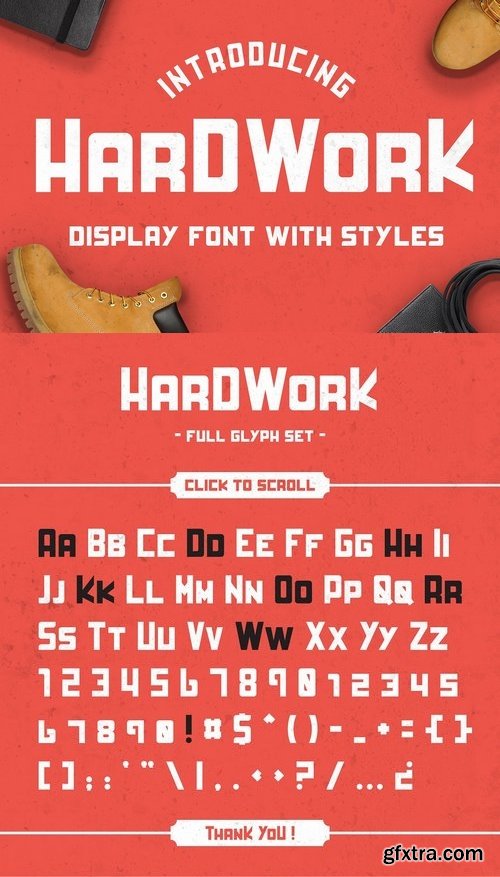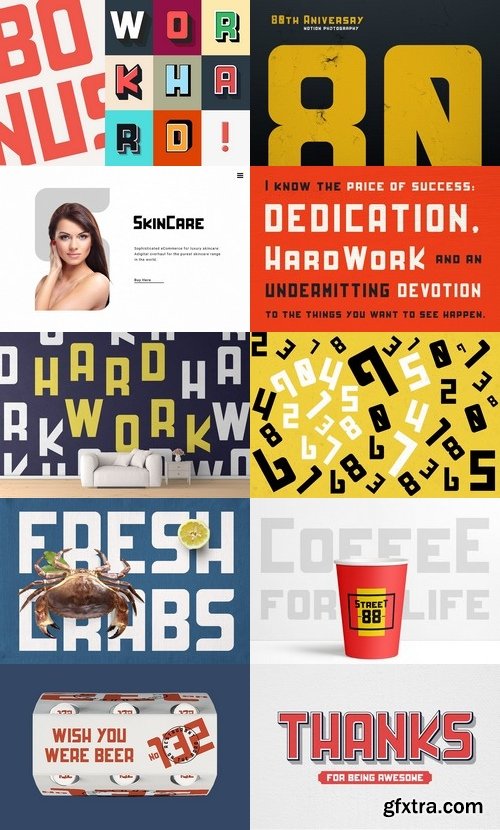
Meet "HardWork - Display Font With Styles" A font created with careful consideration for usability and versatility so it can handle the use for any number of applications thrown at it. It's strong personality and condensed structure makes it perfect for use in headlines and signage, yet distinct enough for modern-retro branding work as well. Play with the 8 graphic styles from the BONUS to enhance your artwork and give it a vintage look with just one click!. Create your timeless project today using "HardWork"! This font comes in OTF format. Want to see the font in action or you want some design inspiration? Be sure to go through all previews above to see them all :)